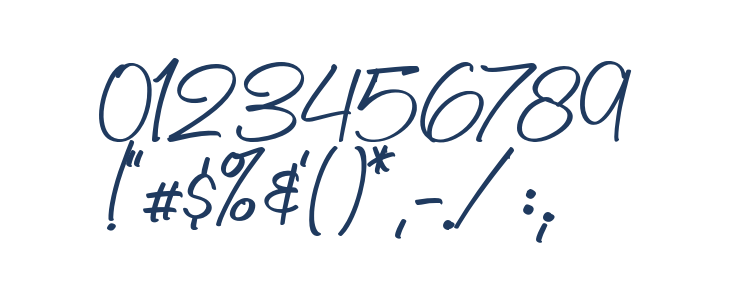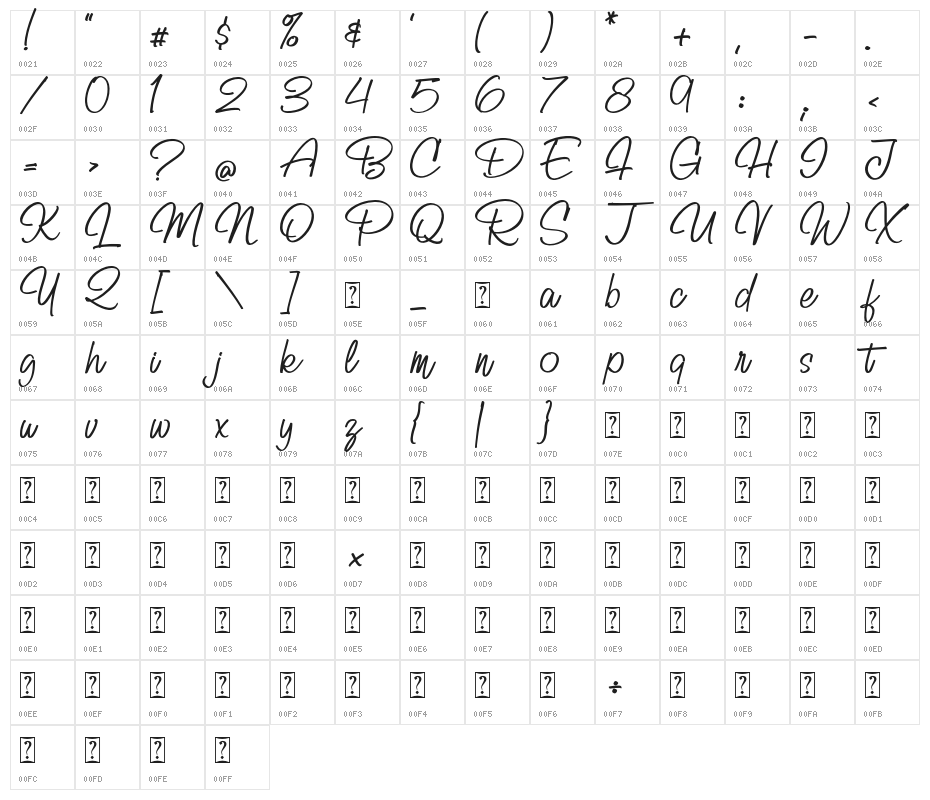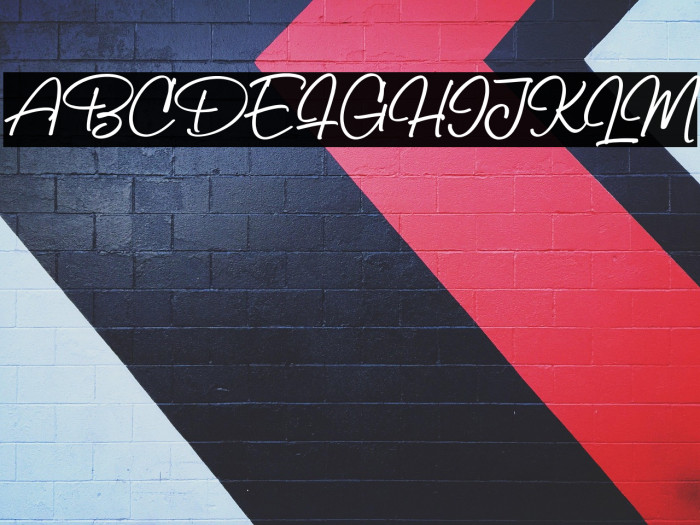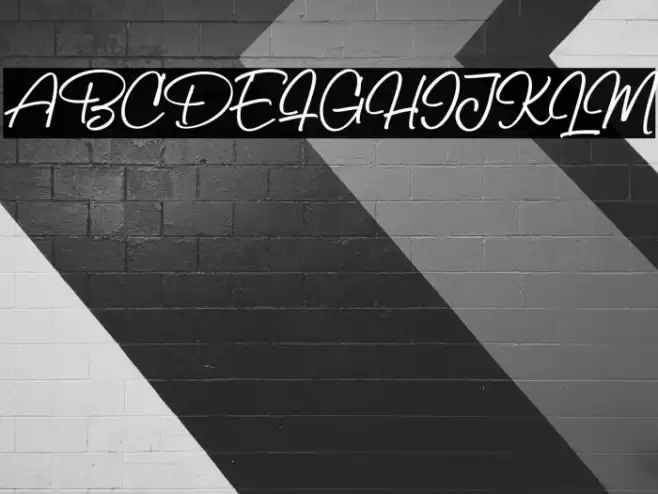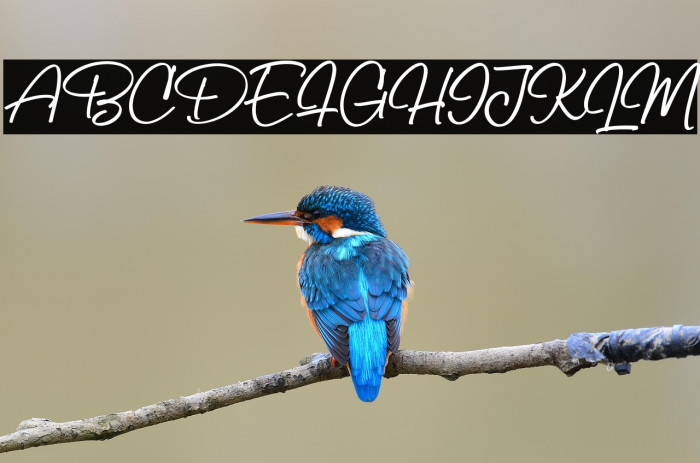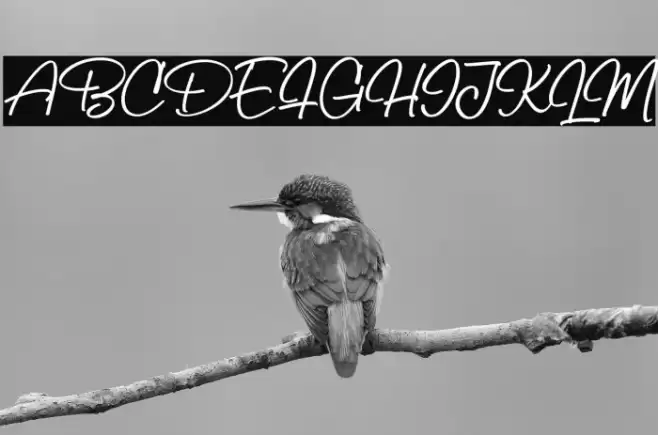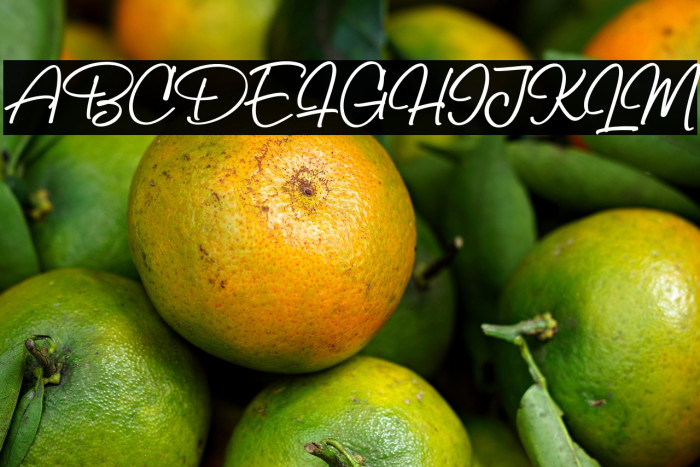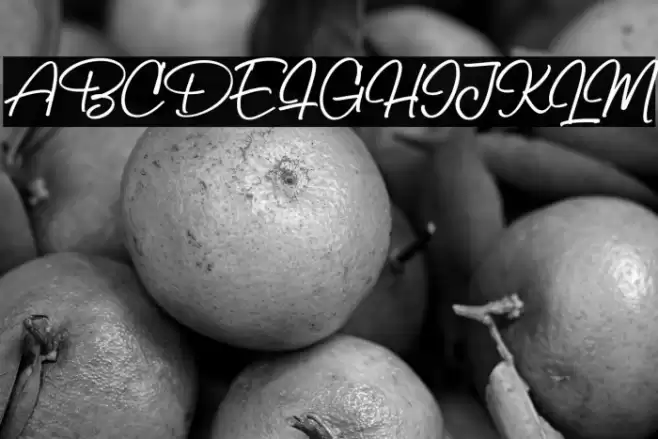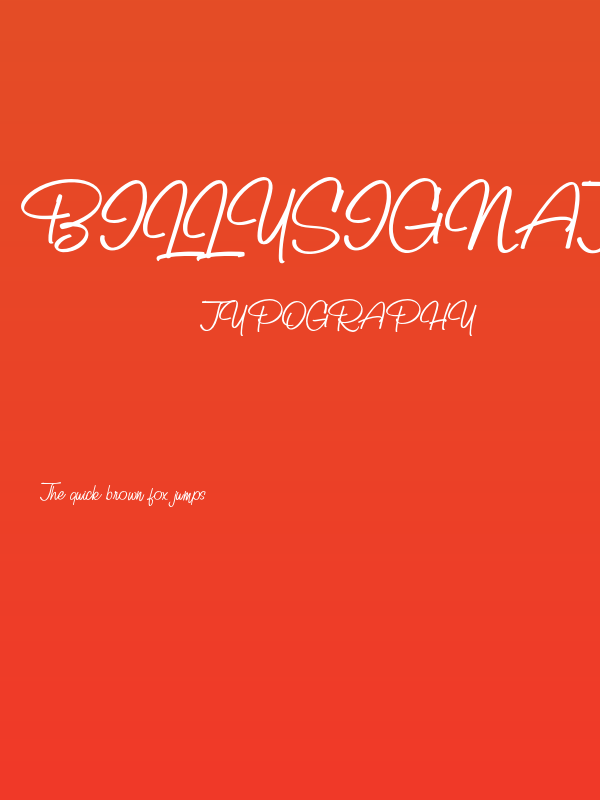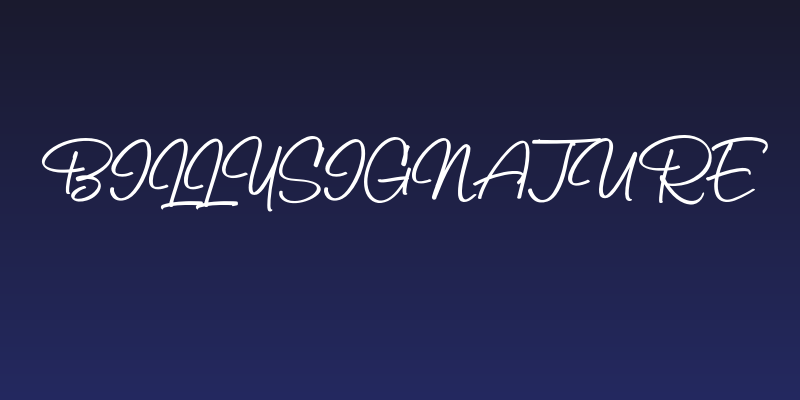
BillySignature Font
BillySignature Description
This font exudes a casual yet elegant handwritten style, characterized by its fluid and connected letterforms. The uppercase letters maintain a consistent height and are slightly slanted, giving a sense of motion and grace. The lowercase letters are more varied in height, with some letters like 'g' and 'y' featuring distinctive loops and tails that add to the font's charm. The numerals are clear and legible, maintaining the same flowing style as the letters. Special characters are well-integrated, ensuring versatility in usage. Overall, this font captures a personal and friendly tone, making it ideal for projects that require a touch of personality.
| Proposed Projects | Ideal for wedding invitations, personal branding, greeting cards, and social media graphics. |